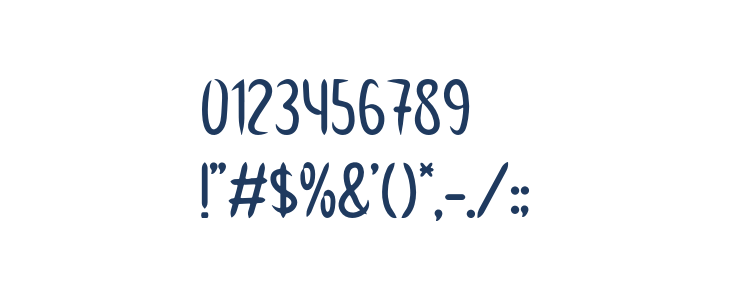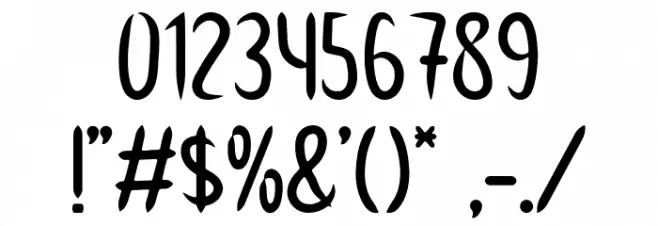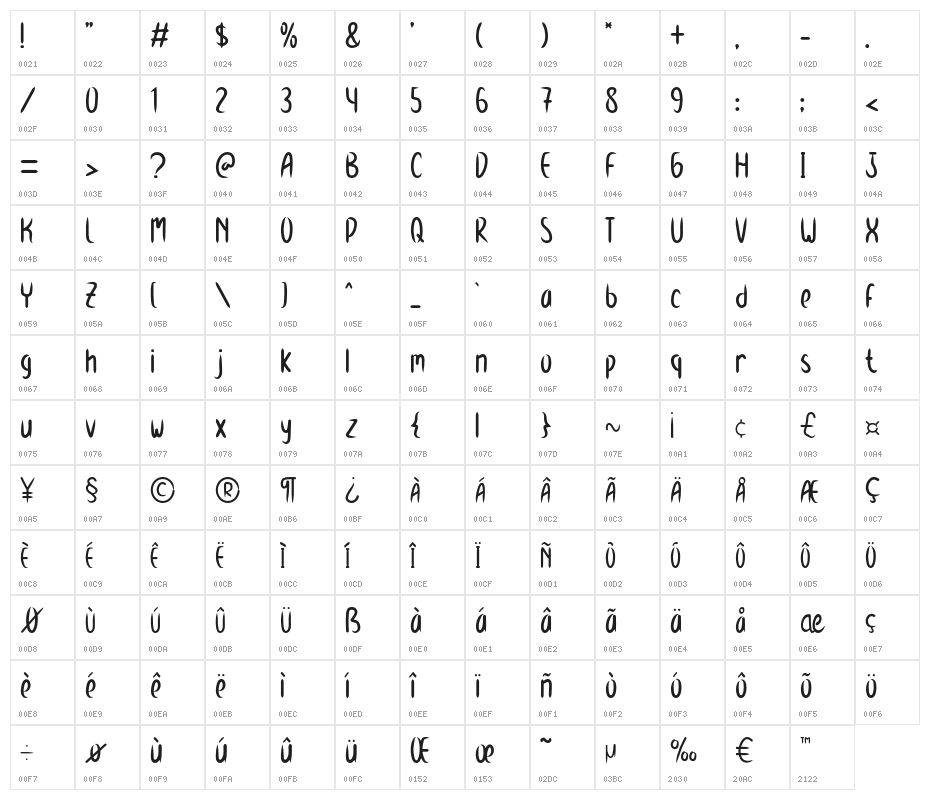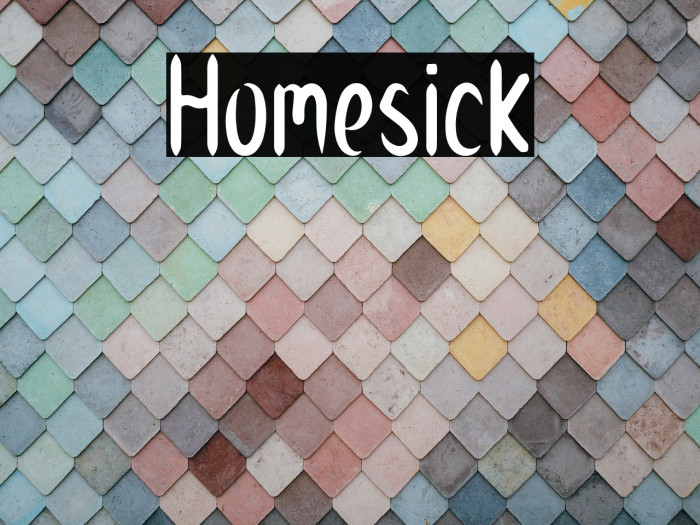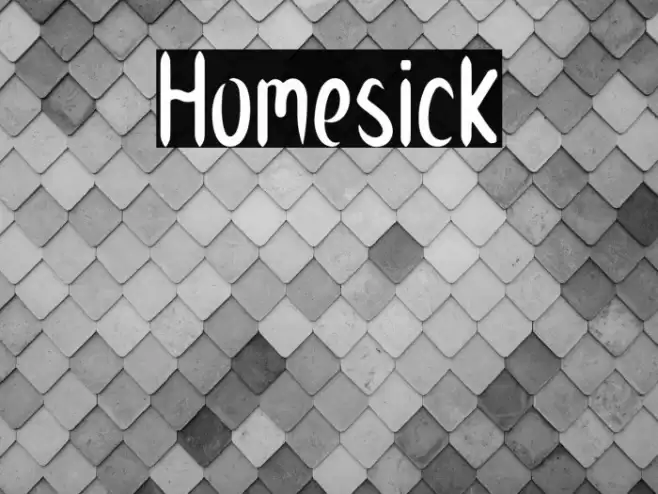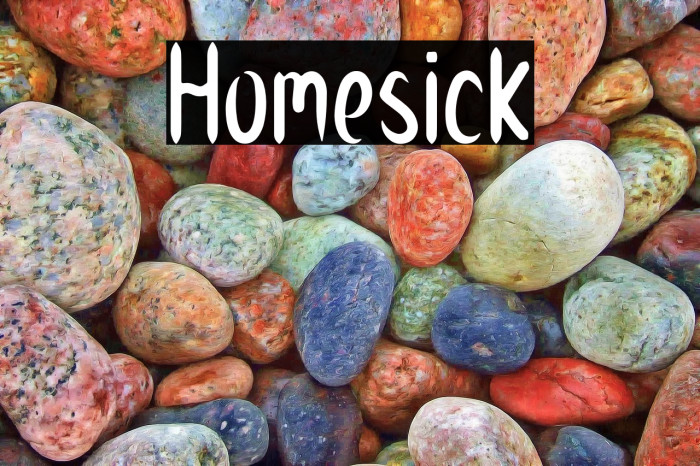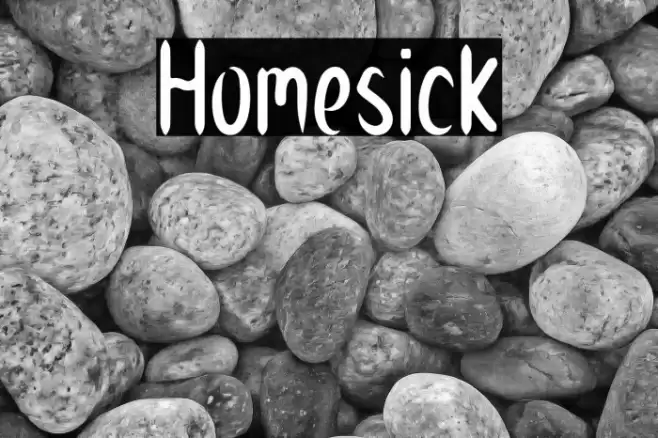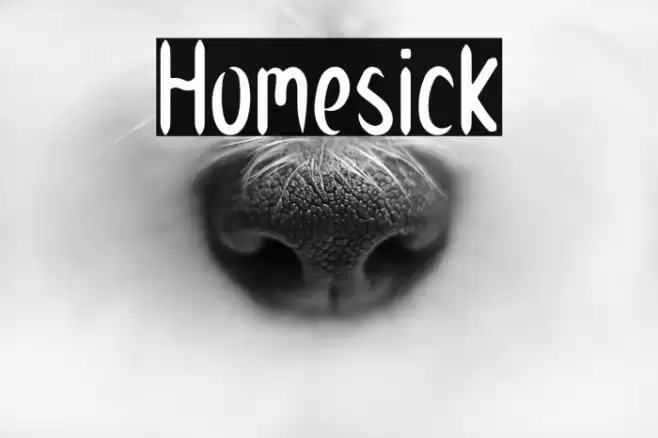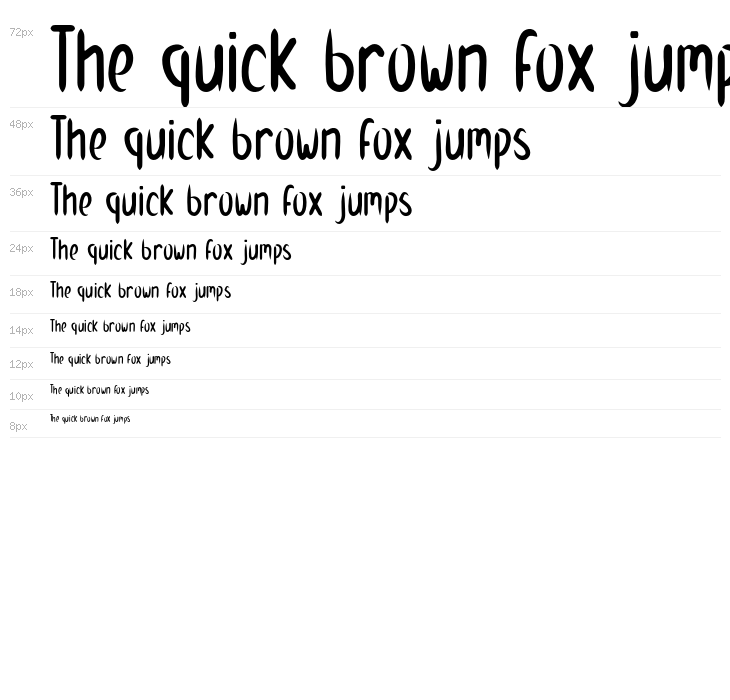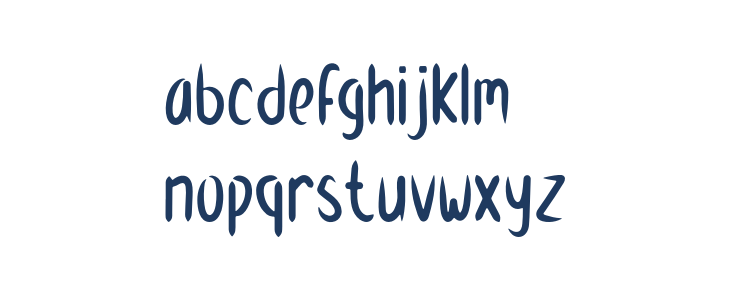
Homesick Font
Homesick Description
This font features a playful and whimsical style with a handwritten appearance. The characters are slightly irregular, giving it a casual and friendly feel. The strokes are smooth and rounded, with a consistent thickness that maintains readability. The uppercase letters are bold and prominent, while the lowercase letters maintain a cohesive flow. Numbers and special characters are designed to match the overall aesthetic, making this font versatile for various creative projects.
| Proposed Projects | Ideal for greeting cards, children's books, playful branding, and social media graphics. |